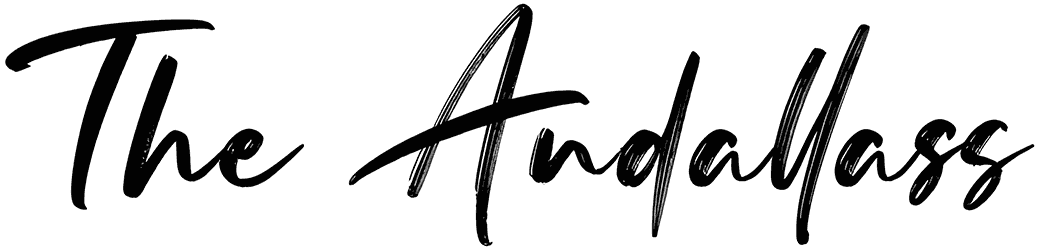
The Andallass Font
It takes just one look at the handwritten letters of The Andallass to realize how suited it is for designing book covers with motivational content, cooking websites, profile logos for photography Instagram pages, and anything else you see fit.
As a brush font with gentle strokes, The Andallass can supply your lettering with all the positive vibes it needs to make the best impression on people. Plus, its design as a cursive font brings enough visual playfulness to your artwork.